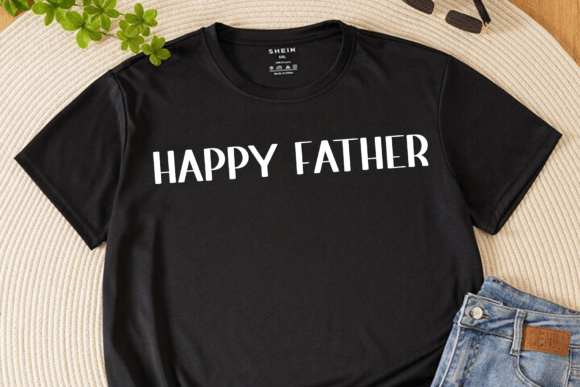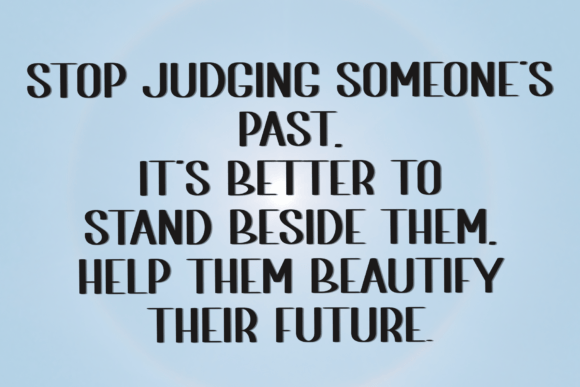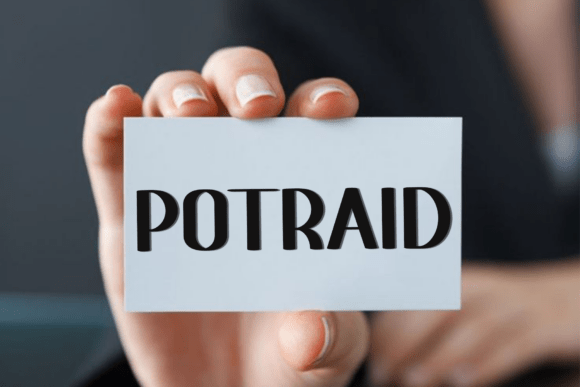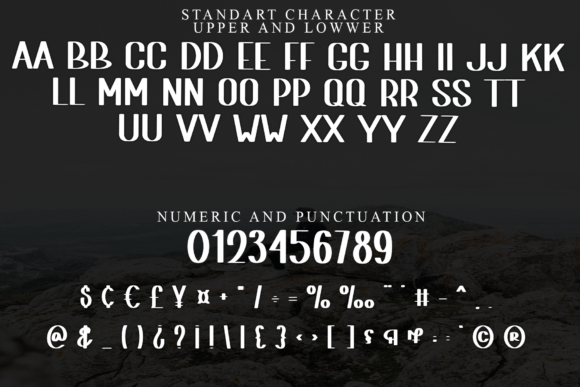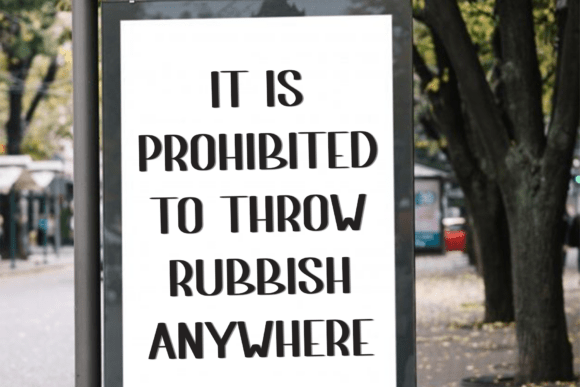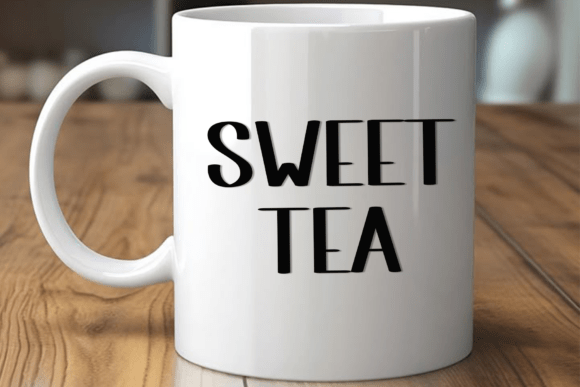
Getting to Know Block Printing Font: A Festive and Merry Typeface for Your Holiday Designs
The holiday season is upon us, and with it comes the desire to create festive and merry designs that capture the spirit of the season. One of the key elements in creating such designs is the choice of font. If you’re looking for a typeface that adds a touch of enchantment to your holiday-themed projects, look no further than Block Printing Font. In this article, we’ll take a closer look at this beautiful font and explore its features, benefits, and uses.
What is Block Printing Font?
Block Printing Font is a decorative typeface that is perfect for adding a touch of whimsy and nostalgia to your designs. With its bold and chunky letters, this font is reminiscent of traditional block printing techniques used in festive holiday decorations. Its unique and eye-catching design makes it an excellent choice for a variety of holiday-themed projects, including greeting cards, gift tags, and social media posts.
Features of Block Printing Font
So, what makes Block Printing Font so special? Here are some of its key features:
- Decorative elements: Block Printing Font features decorative elements that add a touch of festivity to your designs. From snowflakes to holly leaves, these elements help to create a holiday atmosphere.
- Whimsical flair: This font has a playful and whimsical feel that is perfect for capturing the spirit of the holiday season.
- PUA encoded: Block Printing Font is PUA (Private Use Area) encoded, which means you can access all of the amazing glyphs and ligatures with ease.
Benefits of Using Block Printing Font
So, why should you choose Block Printing Font for your holiday designs? Here are some benefits:
- Easy to use: With its PUA encoding, you can easily access all of the font’s features, even if you’re not a skilled designer.
- Versatile: Block Printing Font can be used for a variety of holiday-themed projects, from greeting cards to social media posts.
- Unique: This font’s decorative elements and whimsical flair help it to stand out from more traditional typefaces.
Uses for Block Printing Font
So, what can you use Block Printing Font for? Here are some ideas:
- Greeting cards: Add a personal touch to your holiday greeting cards with this festive font.
- Gift tags: Create custom gift tags that are sure to impress with Block Printing Font.
- Social media posts: Add some holiday cheer to your social media posts with this fun and festive font.
- Holiday-themed projects: From invitations to party decorations, Block Printing Font is perfect for any holiday-themed project.
Tips for Using Block Printing Font
Here are some tips for getting the most out of Block Printing Font:
- Experiment with colors: Try pairing Block Printing Font with different colors to create a unique and eye-catching design.
- Mix and match: Combine Block Printing Font with other fonts to create a unique and interesting design.
- Play with sizes: Experiment with different font sizes to create a visually appealing design.
Block Printing Font is a beautiful and festive typeface that is perfect for adding a touch of enchantment to your holiday designs. With its decorative elements, whimsical flair, and PUA encoding, this font is easy to use and versatile. Whether you’re a designer or a crafter, Block Printing Font is sure to become a favorite in your collection. So why not give it a try and see how it can add some holiday cheer to your designs?